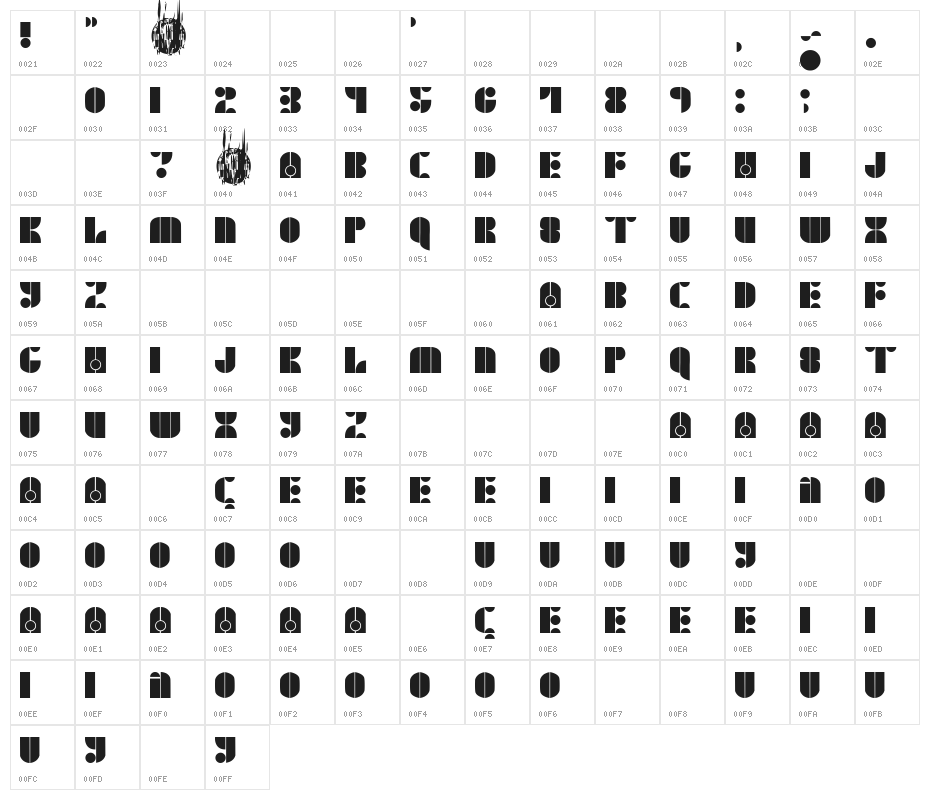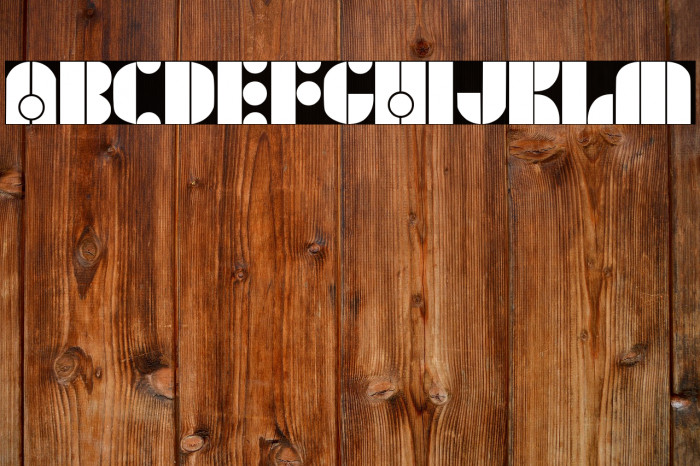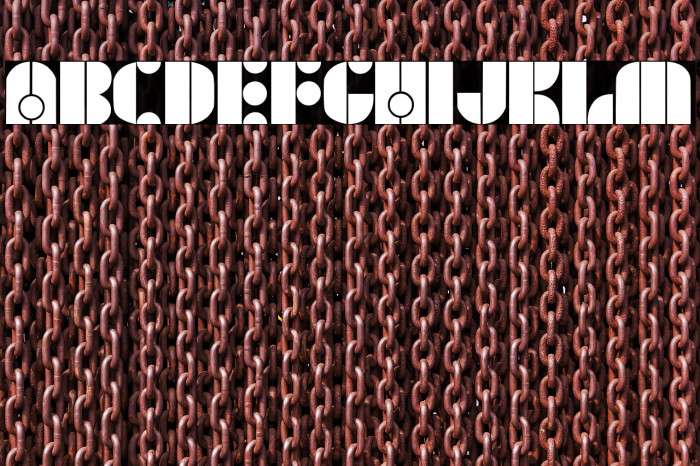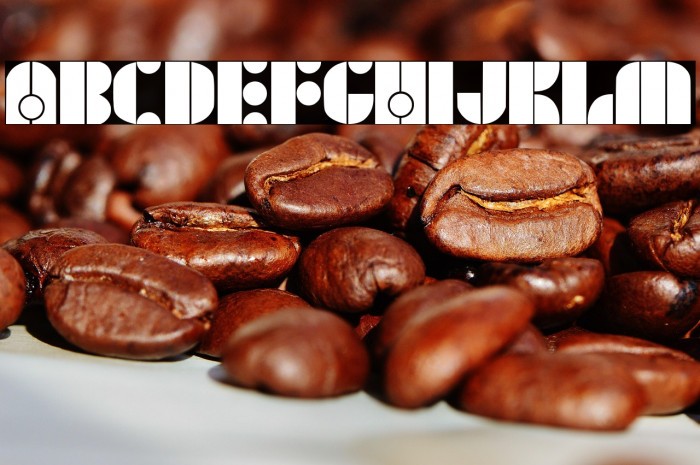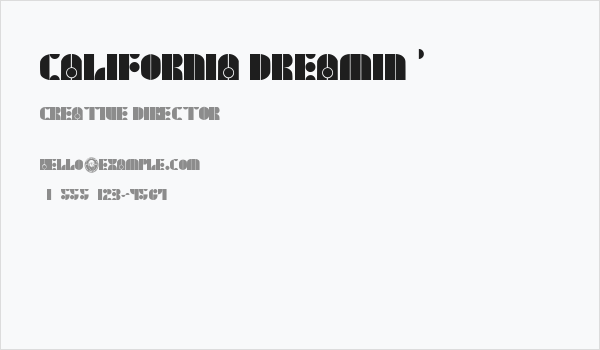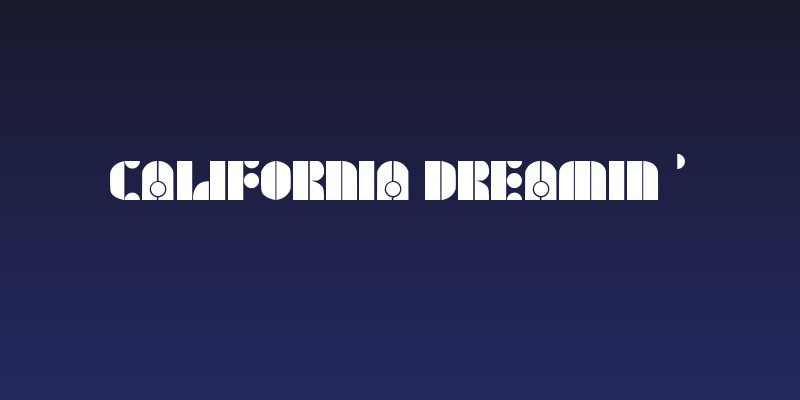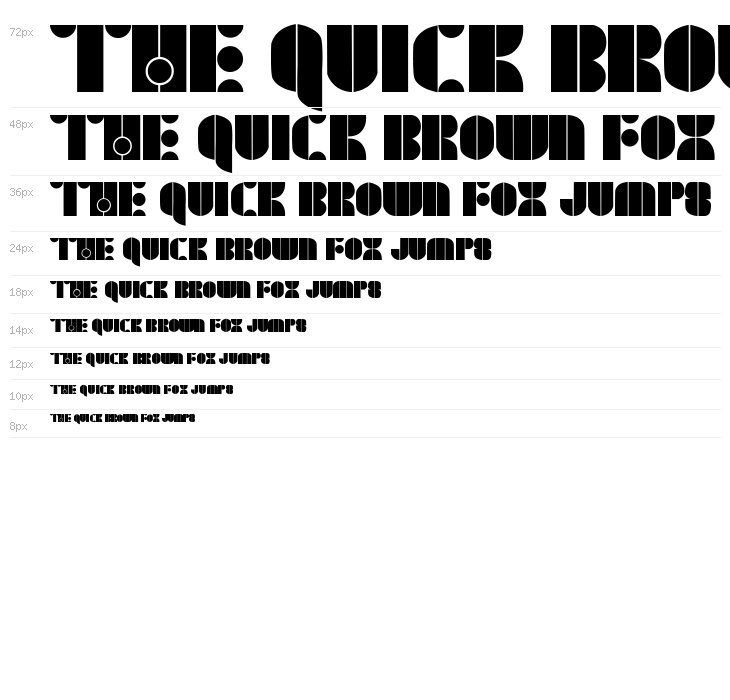
California Dreamin' Font
California Dreamin' Description
This font features a bold and geometric design with a strong emphasis on circular and semi-circular shapes. Each character is crafted with a unique combination of solid and hollow forms, creating a striking visual contrast. The uppercase and lowercase letters maintain a consistent style, with the uppercase being more dominant and the lowercase offering a more compact version. Numbers and special characters follow the same design principles, ensuring uniformity across all glyphs. The font's distinct style makes it ideal for eye-catching designs that require a modern and artistic flair.